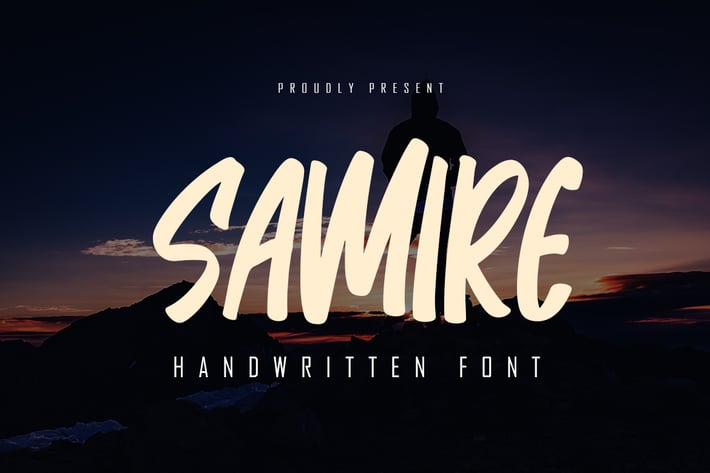
Samire - Handwritten Font
Samire is a unique and elegant handwritten font. It looks beautiful on a variety of designs requiring a personalized style, This font is PUA encoded which means you can access all of the glyphs and swashes with ease!